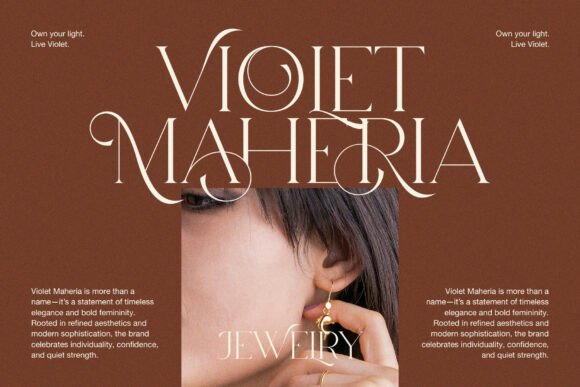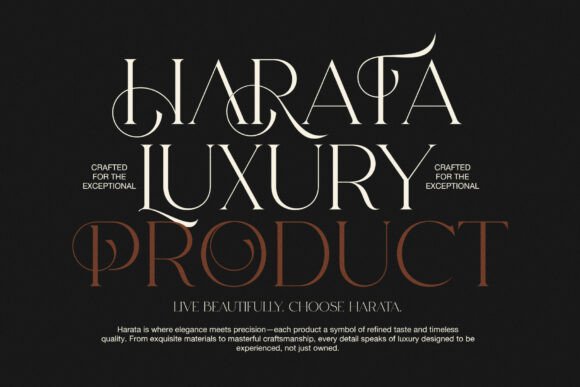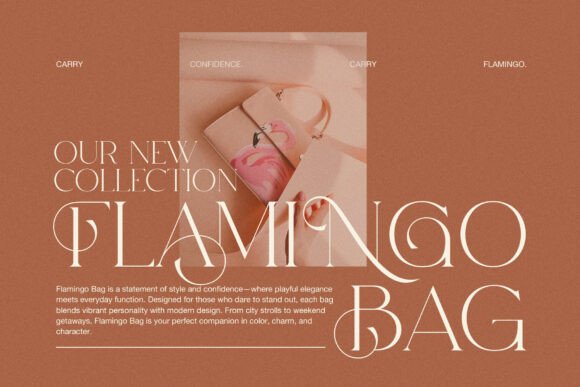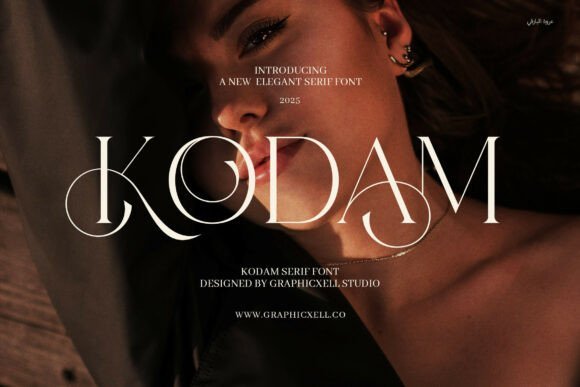
Introduction to Kodam Font
Kodam is an elegant serif display font created to express beauty, emotion, and refined character.
Inspired by editorial design and modern luxury aesthetics, this font combines graceful curves with confident serif structures As a result, Kodam feels timeless while still appearing fresh and expressive across contemporary projects.